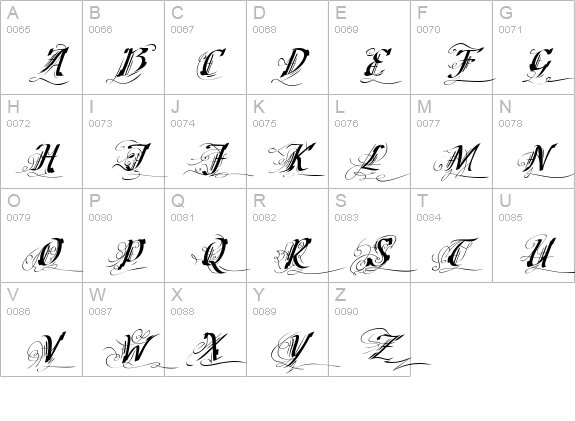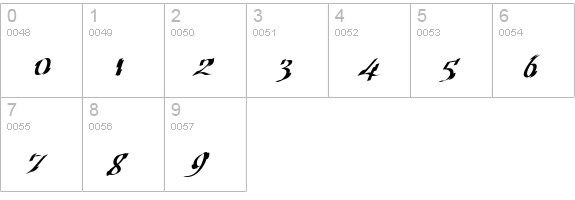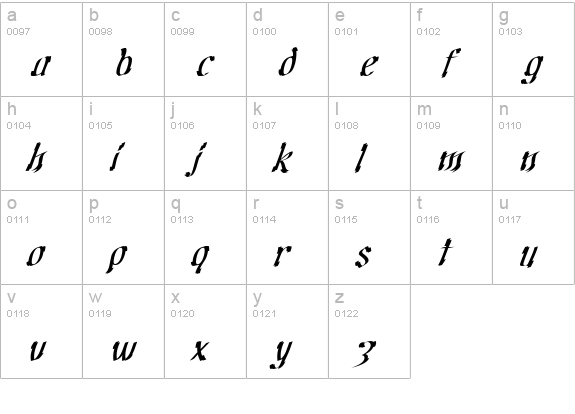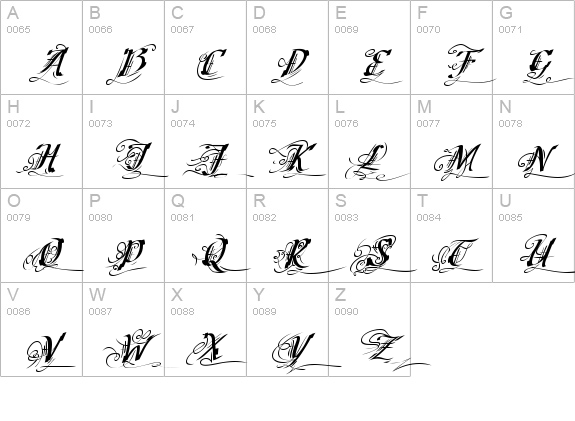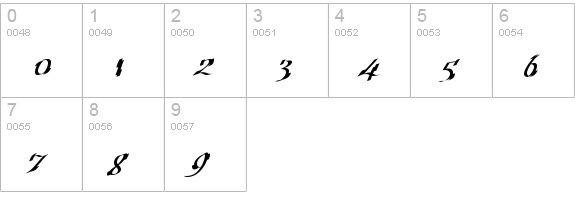
Cretino Font Details
Cretino font is a versatile typeface that exudes a modern and stylish aesthetic. With its sleek lines and contemporary design, this font is perfect for a wide range of projects, from branding to editorial design. The clean and elegant letterforms of Cretino font make it a great choice for creating eye-catching headlines or adding a sophisticated touch to any design. What's even better is that Cretino font is available for free download at FontsMarket.com. This means you can easily access and use this beautiful font in your projects without any cost. So why wait? Elevate your designs with the sleek and stylish Cretino font today!